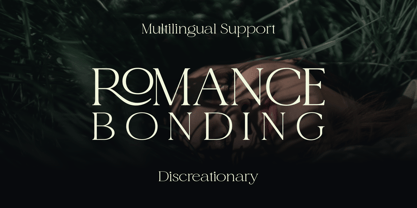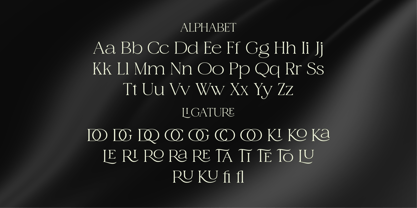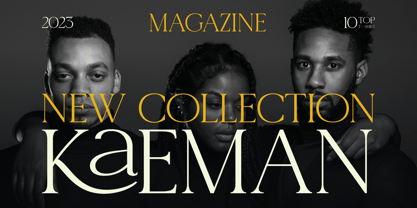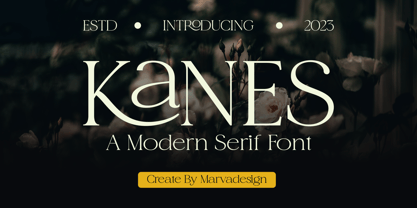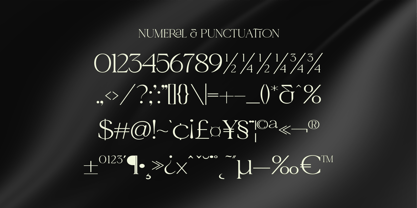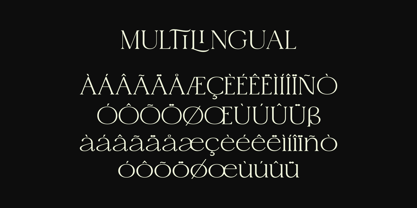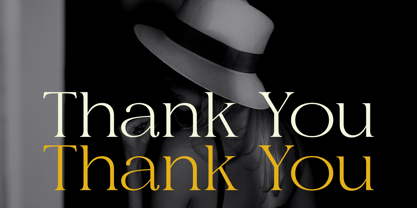
Kanes
by Marvadesign
The Kanes Font Family was designed by Febrie Setiawan and published by Marvadesign. Kanes contains 1 styles. More about this family
Introducing Kanes is a sophisticated serif typeface designed with an elegant and timeless appeal. Its intricate ligatures and versatile alternatives provide a high level of flexibility, making it an excellent choice for a variety of creative applications. Whether you're designing for product branding, posters, jewelry, fashion, or other premium materials, Kanes offers a perfect balance of style and functionality. Its refined details and graceful letterforms elevate your designs, ensuring a luxurious and professional appearance.
Designers: Febrie Setiawan
Foundry: Marvadesign